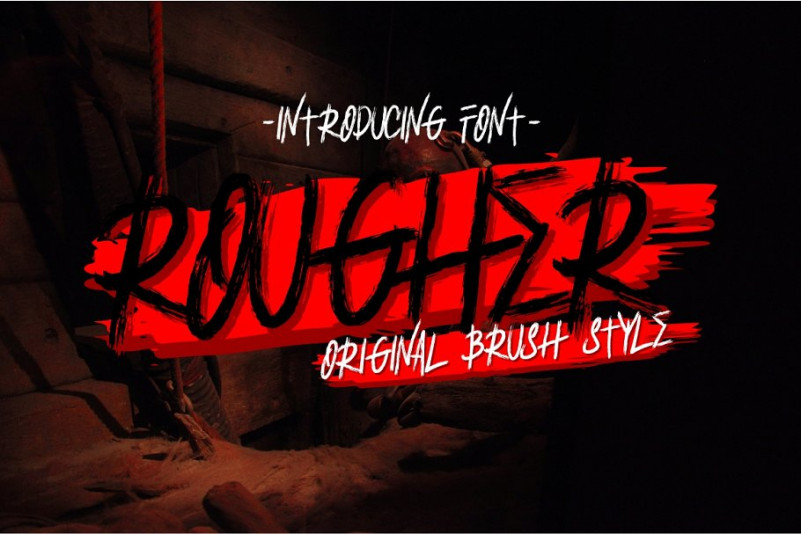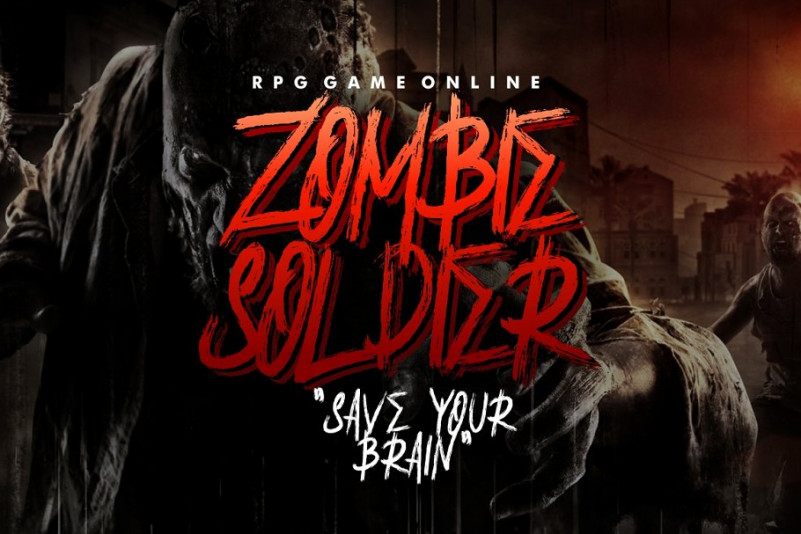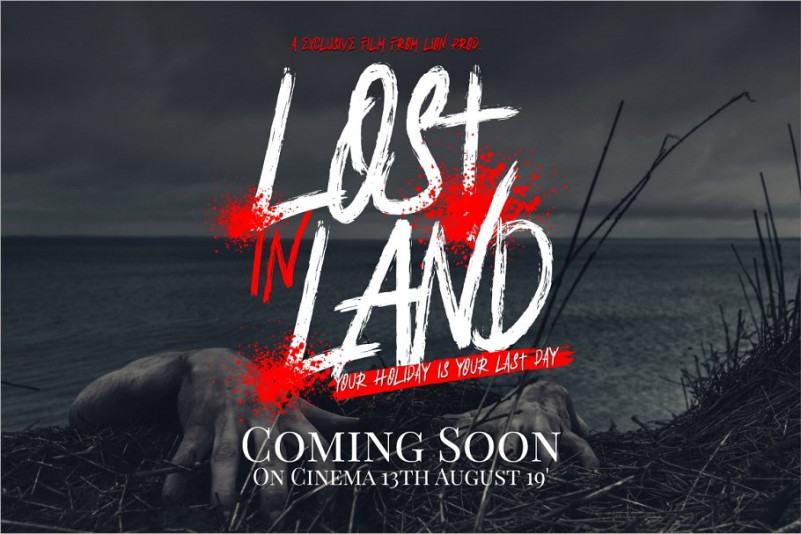
Rougher Brush Font
Introducing ROUGHER
ROUGHER is a brush handwriting typeface with stylish street and natural stroke. help you create stunning hand-lettering. ROUGHER perfect for logos, header, titles, prints, apparel,Logotype, Quotes, Packaging, Flyer, Poster, Records Cover & other creative process possibilities.